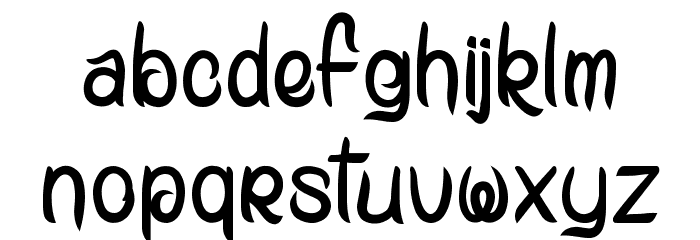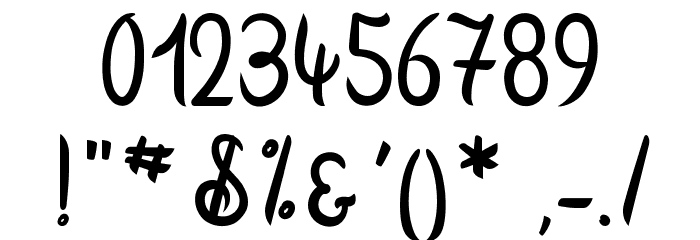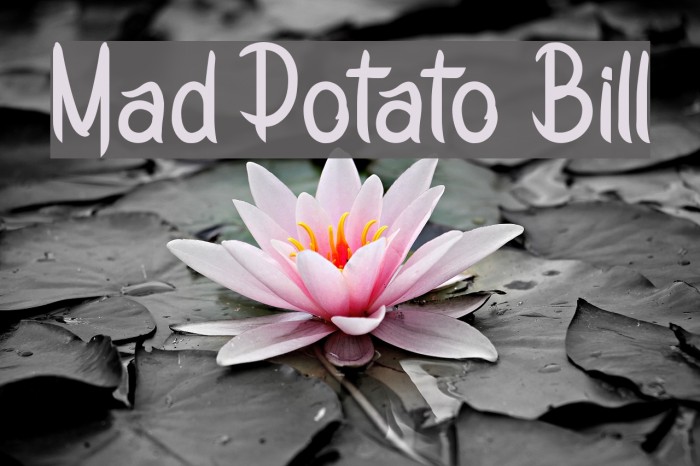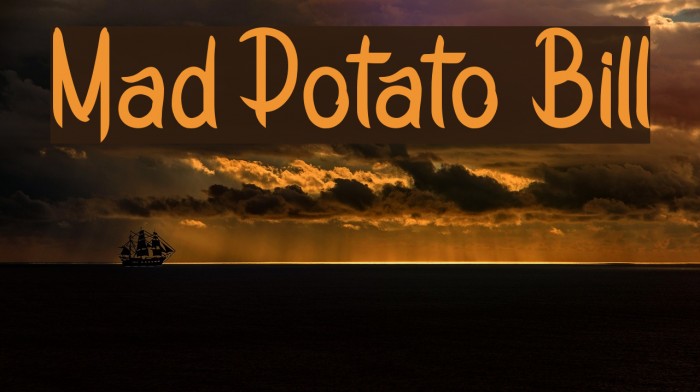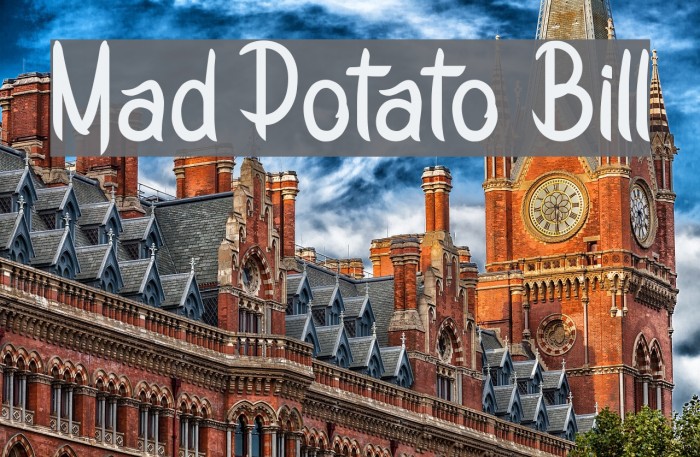
Mad Potato Bill Font
This playful and whimsical font features a hand-drawn style with a unique flair. The letters are characterized by their bold, rounded forms and exaggerated curves, giving them a lively and energetic appearance. The uppercase letters have a distinct personality, with some characters featuring loops and swirls that add to the font's charm. The lowercase letters maintain a consistent style, complementing the uppercase with their own quirky shapes. Numbers and special characters follow the same playful design, making this font suitable for creative and informal projects. Its bold strokes and dynamic shapes make it stand out, perfect for capturing attention.
A playful, hand-drawn font with bold, rounded forms and whimsical curves.
- Proposed Projects: Ideal for children's books, playful branding, party invitations, and creative posters.